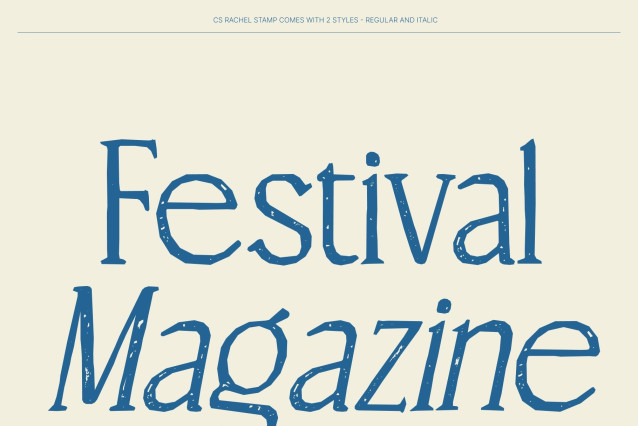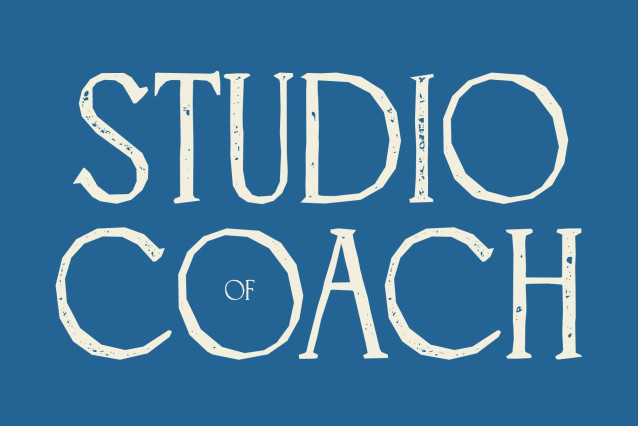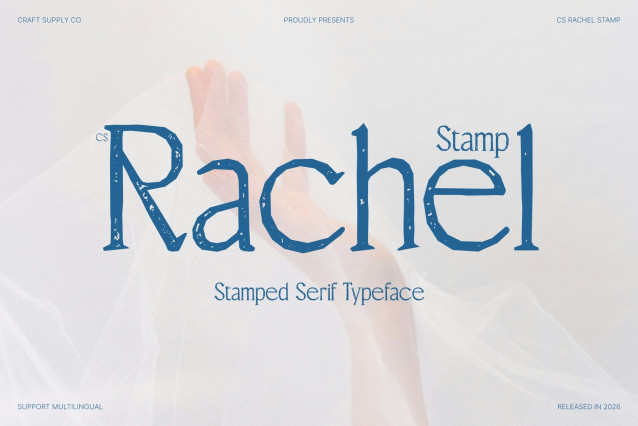
CS Rachel Stamp – Elegant Serif Font: Where Refined Beauty Meets Vintage Artistry
Slender Elongated Serifs with Graceful Sophistication
This is an elegant serif font crafted with slender elongated serifs that radiate refinement, beauty, and timeless style. Its graceful proportions create a polished visual rhythm that feels luxurious, delicate, and highly sophisticated. Every letterform is designed to bring elegance and clarity, making the font perfect for premium visual compositions.
Timeless Elegance with Contemporary Style
This font delivers a typographic voice that feels stylish, graceful, and professional. The elongated serif details enhance its luxurious personality while maintaining readability and balance, resulting in a typeface ideal for upscale and artistic design projects.